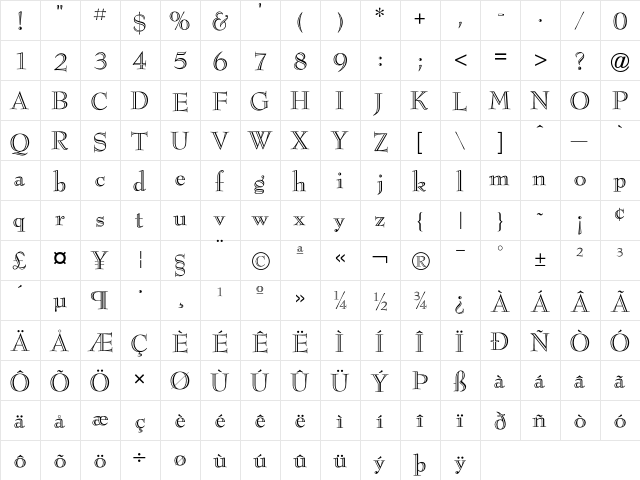
BernhardModernICG Eng
Design Context for BernhardModernICG Typeface
BernhardModernICG takes a measured approach to typography — its balanced proportions and neutral character make it a reliable workhorse for both digital and print work.